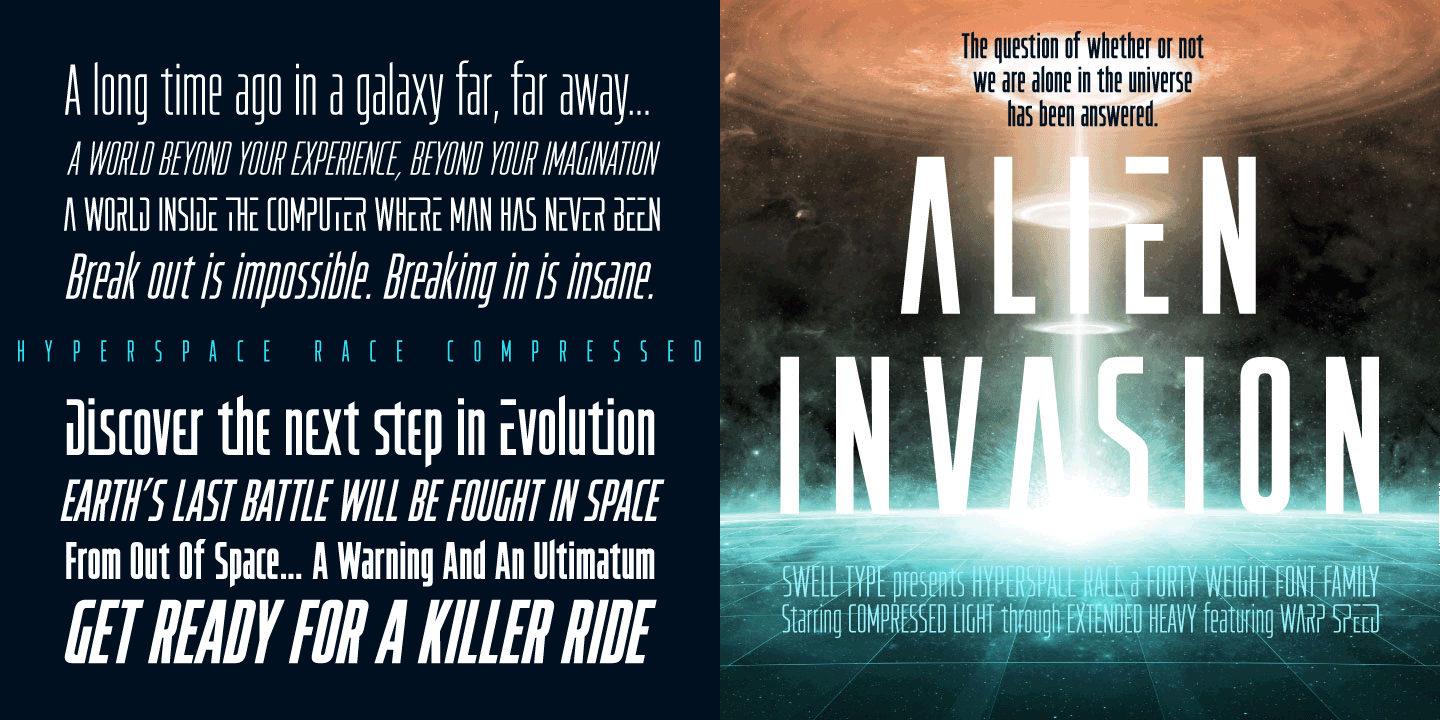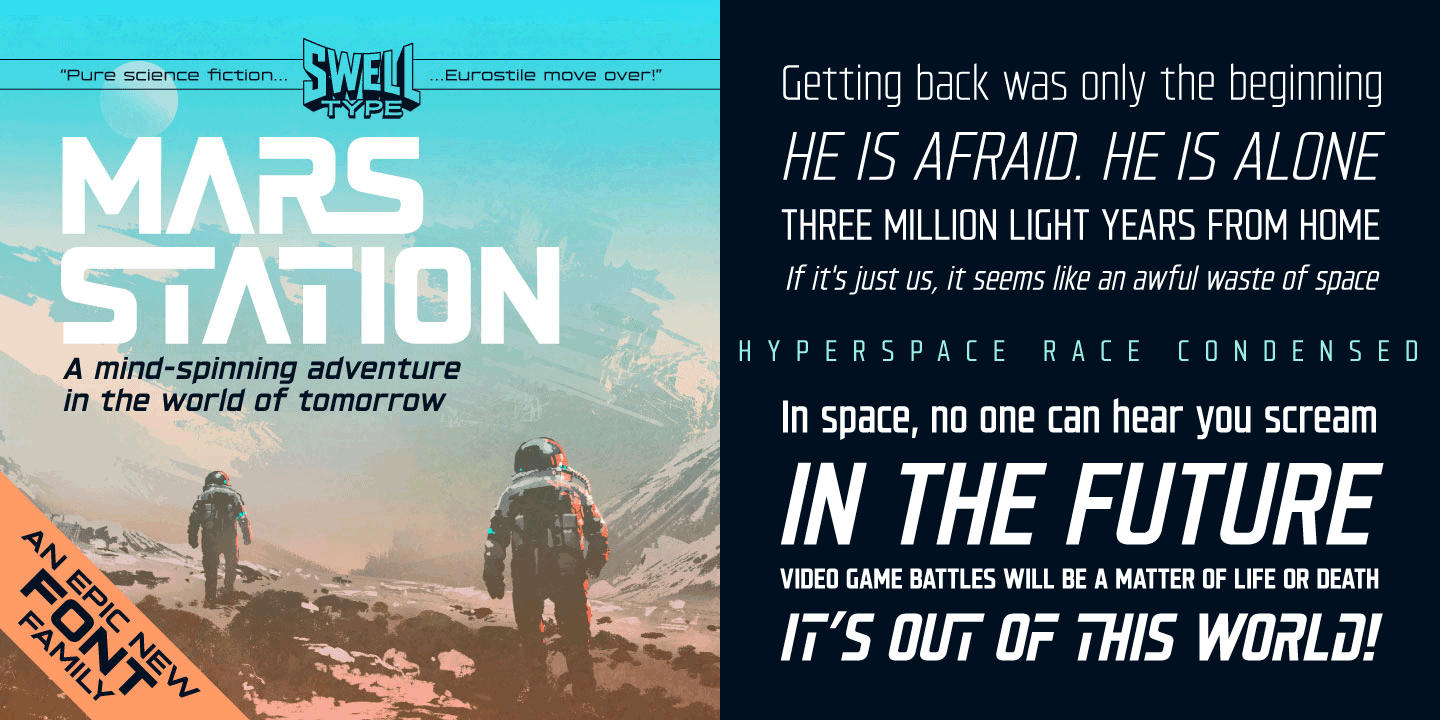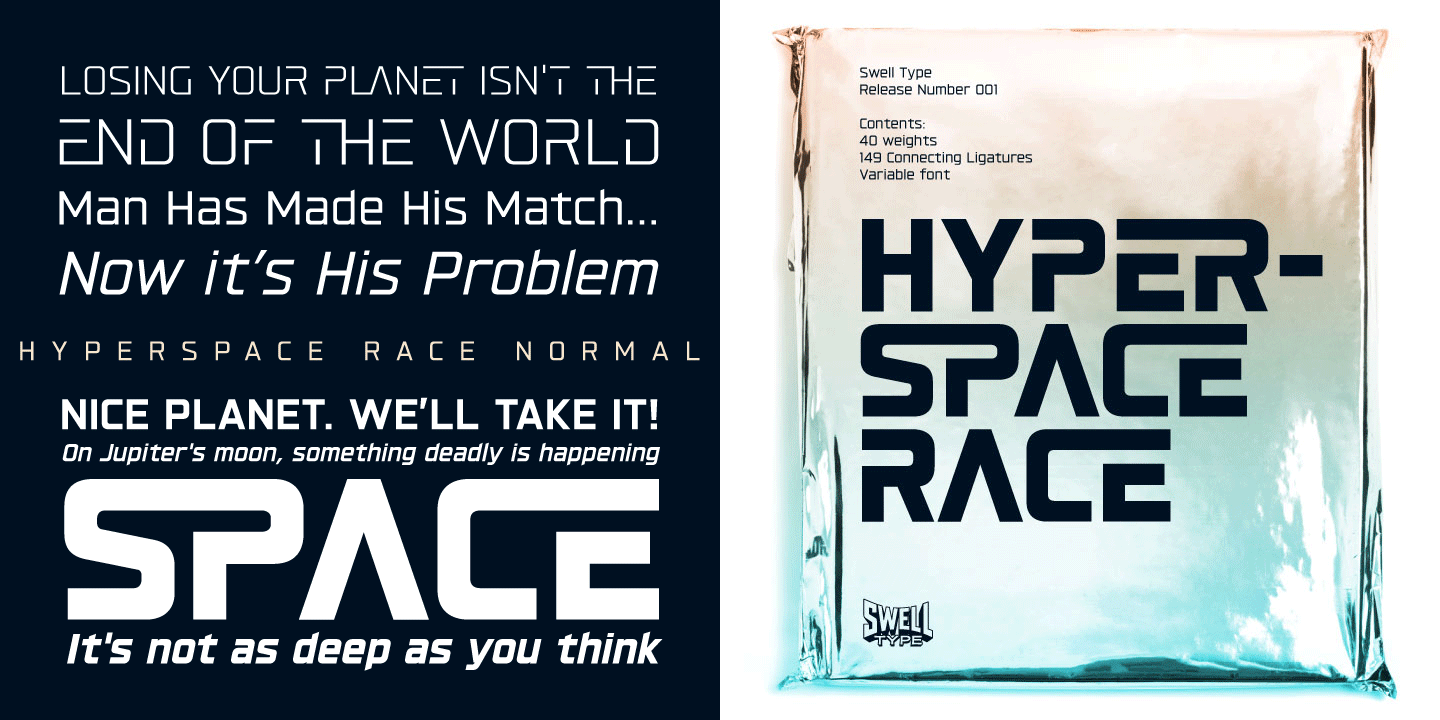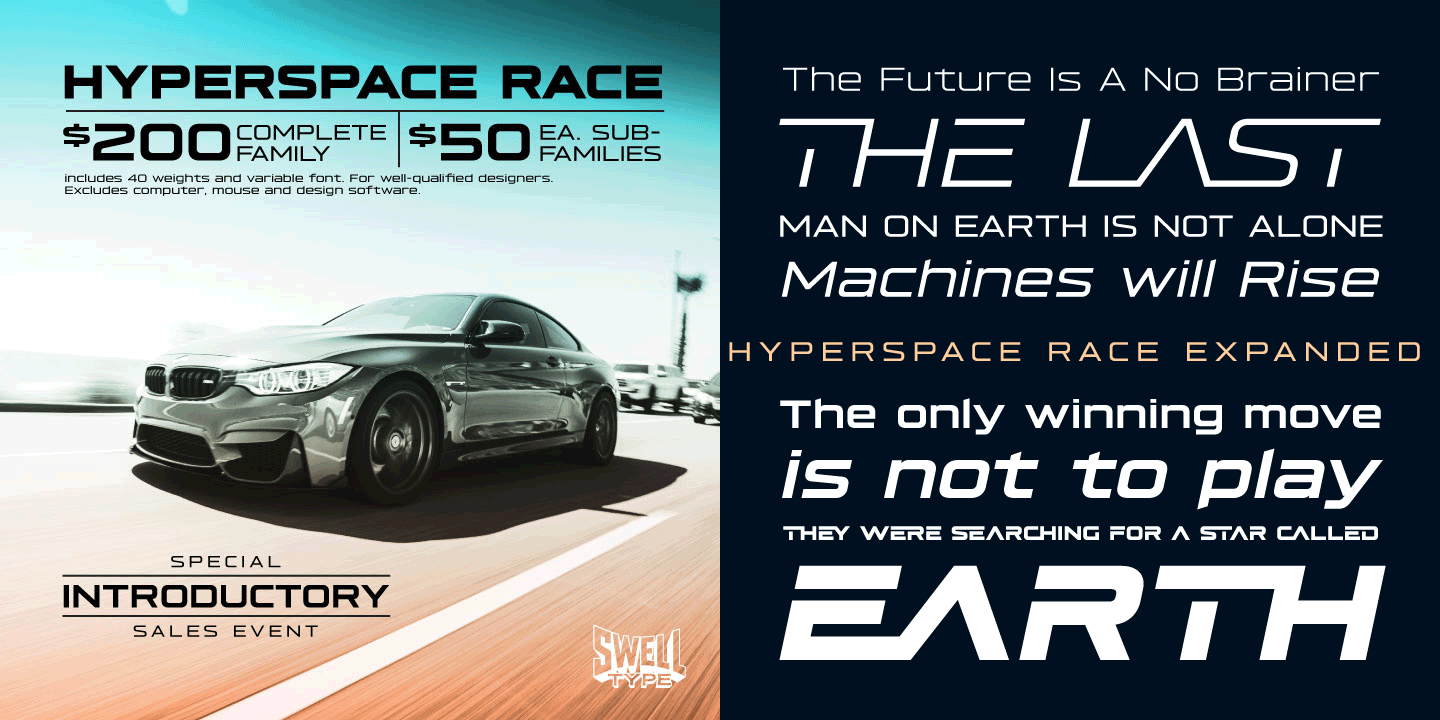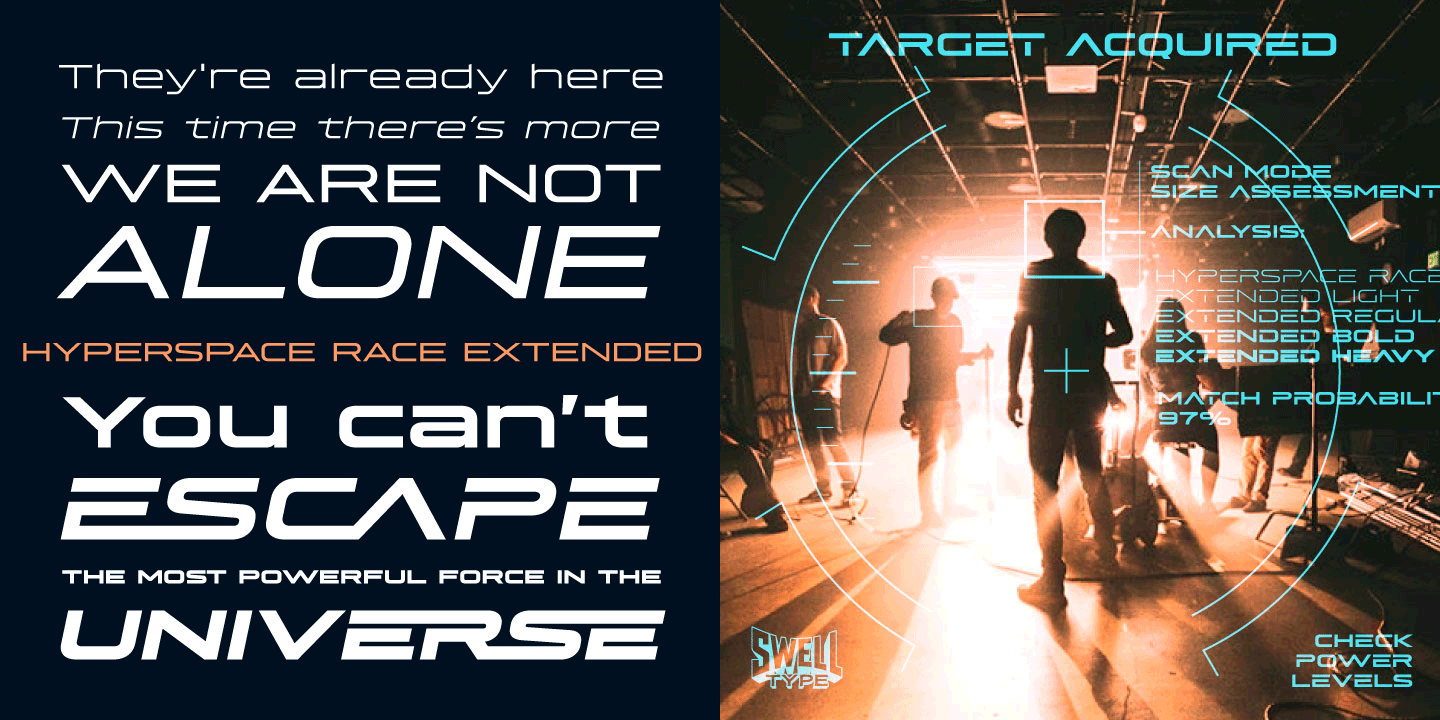
It had to happen: we reached into the future and returned with the ultimate hyper-wide hyper-condensed hyper-thin hyper-bold font: HYPERSPACE RACE! Hyperspace Race boldly goes where no sci-fi font has gone before, with WARP SPEED mode (149 custom connecting…